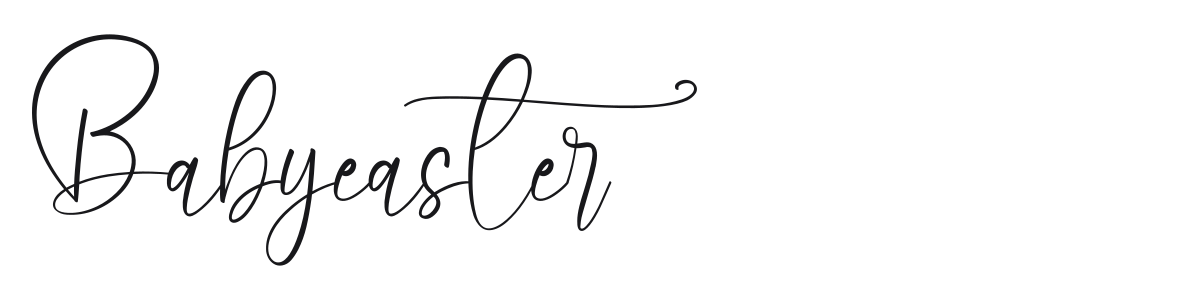
Babyeaster
BabyeasterLicense is a flowing casual script with long looping ascenders, delicate hairline upstrokes, and an easy, ribbon-like rhythm across the baseline. Its light weight and sweeping swashes make it a natural choice for wedding invitations, packaging labels, and social media branding that calls for a handcrafted, romantic feel. The connected cursive flow keeps it legible at headline sizes while still feeling personal.